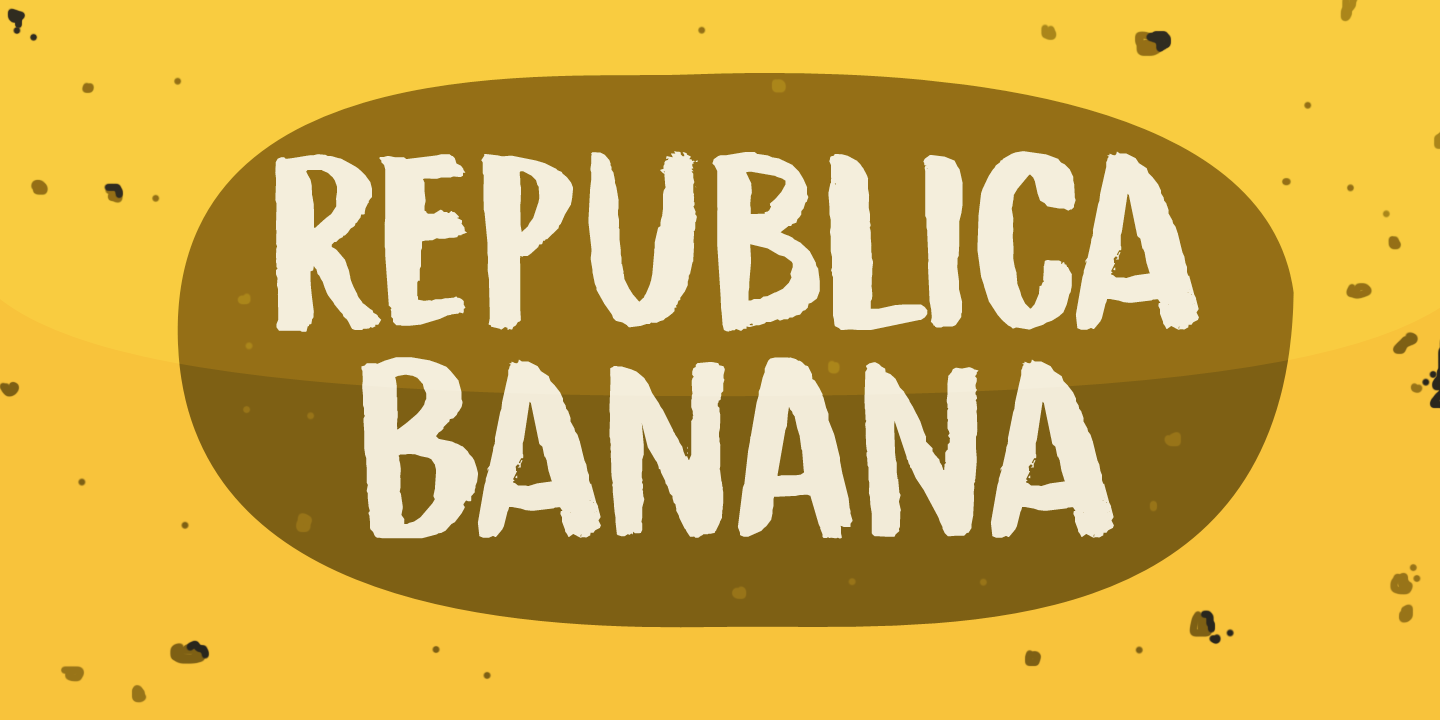
The Republica Banana Font excels in various design applications including tropical resort branding, exotic restaurant menus, Latin American cultural events, vibrant festival promotions, island vacation marketing, colorful beverage packaging, summer party invitations, Caribbean-themed designs, tropical fruit branding, and playful hospitality communications that demand sunny disposition and tropical warmth.
What makes the Republica Banana Font exciting is its captivating ability to transport viewers to tropical paradises through letterforms that embody the carefree spirit and vibrant energy of banana republic aesthetics. This typeface captures the essence of sunny beaches, swaying palm trees, and exotic adventures through its playful character designs that radiate warmth, joy, and tropical sophistication. The font's festive personality makes it perfect for brands seeking to evoke vacation feelings, summer excitement, and the irresistible charm of tropical destinations and exotic experiences.
The Republica Banana Font family typically includes multiple weight variations that enhance the tropical atmosphere, often featuring decorative alternates with fruit-inspired elements, vacation-themed symbols, and playful ligatures. These family options may include specialized glyphs, tropical ornaments, and sunny decorative elements that amplify the exotic appeal and provide designers with comprehensive tools for creating authentically tropical typography that celebrates island culture.
Hospitality industry professionals and tropical brand marketers consistently choose Republica Banana Font Free Download for projects requiring vibrant, vacation-inspired typography that creates immediate emotional connections with travel and leisure audiences. This typeface delivers exceptional performance in tourism marketing, tropical product branding, and resort communications where establishing sunny atmosphere and vacation appeal is essential for attracting adventure-seeking customers. The font's banana republic character makes it particularly effective for Caribbean and Latin American themed projects. Download Republica Banana Font Free Download today to access this delightful typeface that transforms ordinary communications into tropical escapes, elevating your projects with typography that genuinely captures the spirit of exotic destinations and sunny vacation dreams.